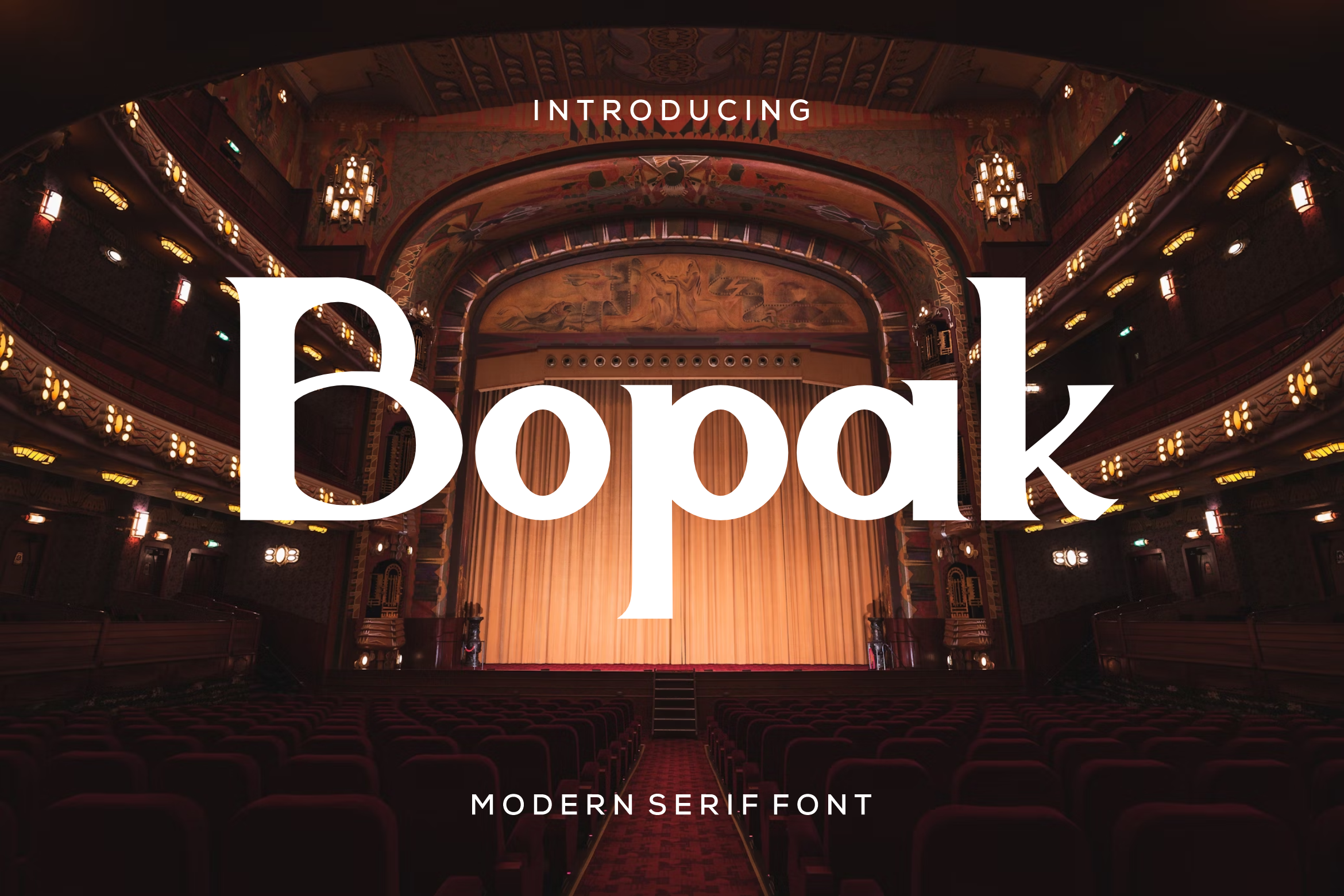
Bopak modern sans serif font
Bopak is a modern sans serif font, a modern display font with playful flair, ideal for attention-grabbing headlines, logos, and diverse design projects. Versatile and readable in both digital and print, Bopak adds a dynamic touch to your message.